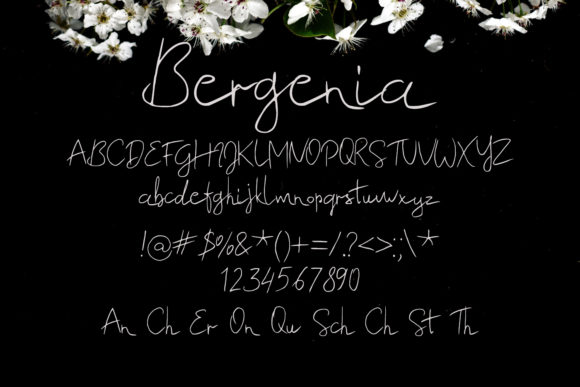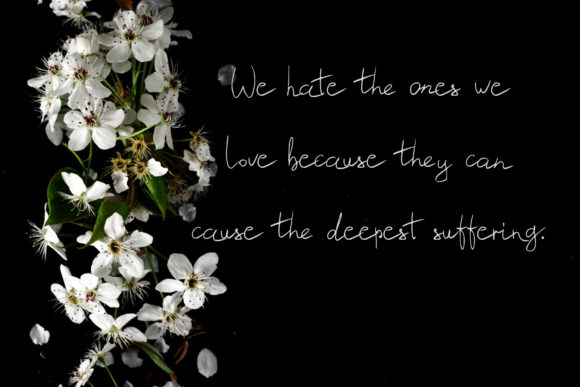
Bergenia Font: A Delicate and Versatile Handwritten Font for Designers and Crafters
In the world of typography, a font can make all the difference in the aesthetic and tone of a design project. For designers and crafters looking for a delicate and thin lettered handwritten font, Bergenia Font is an excellent choice. This beautiful font is perfect for a variety of applications, from logos and wedding invitations to headings, t-shirts, letterhead, signage, labels, news, posters, badges, and more.
What is Bergenia Font?
Bergenia Font is a carefully crafted handwritten font that exudes elegance and sophistication. Its delicate and thin lettering makes it an ideal choice for designs that require a touch of refinement and poise. The font’s unique character and charm make it perfect for designers and crafters who want to add a personal touch to their projects.
Key Features of Bergenia Font
- Delicate and thin lettering: Bergenia Font features a beautiful, handwritten script with delicate and thin lettering that adds a touch of elegance to any design.
- Versatile: This font can be used for a wide range of applications, from logos and wedding invitations to headings, t-shirts, letterhead, signage, labels, news, posters, badges, and more.
- Handwritten: Bergenia Font is a handwritten font that adds a personal touch to any design, making it perfect for designers and crafters who want to create unique and distinctive projects.
Uses of Bergenia Font
Bergenia Font is a versatile font that can be used for various purposes, including:
- Logos: Create a beautiful and elegant logo for your business or brand with Bergenia Font.
- Wedding Invitations: Add a touch of romance and sophistication to your wedding invitations with this stunning font.
- Headings: Use Bergenia Font to create eye-catching headings for your blog posts, articles, or website.
- T-shirts: Design unique and stylish t-shirts with Bergenia Font that will make a statement.
- Letterhead: Create professional-looking letterhead with this elegant font.
- Signage: Use Bergenia Font to create eye-catching signage for your business or event.
- Labels: Design beautiful labels for your products or gifts with this versatile font.
- News: Create a stunning newspaper or newsletter with Bergenia Font.
- Posters: Design eye-catching posters for your business, event, or promotion with this beautiful font.
- Badges: Create unique and stylish badges with Bergenia Font that will make a statement.
Why Choose Bergenia Font?
There are many reasons why designers and crafters choose Bergenia Font for their projects. Here are a few:
- Elegance: Bergenia Font adds a touch of elegance and sophistication to any design.
- Versatility: This font can be used for a wide range of applications, making it a great addition to any designer’s toolkit.
- Uniqueness: Bergenia Font is a unique and distinctive font that will make your designs stand out from the crowd.
- Easy to read: Despite its delicate and thin lettering, Bergenia Font is easy to read, making it perfect for body text and headings.
Tips for Using Bergenia Font
Here are a few tips for using Bergenia Font in your designs:
- Pair with bold fonts: Pair Bergenia Font with bold fonts to create a striking contrast and add visual interest to your design.
- Use for headings: Use Bergenia Font for headings and titles to add a touch of elegance and sophistication to your design.
- Experiment with colors: Experiment with different colors and textures to add depth and interest to your design.
In conclusion, Bergenia Font is a beautiful and versatile handwritten font that is perfect for designers and crafters looking to add a touch of elegance and sophistication to their projects. With its delicate and thin lettering, versatility, and uniqueness, Bergenia Font is a great addition to any designer’s toolkit.